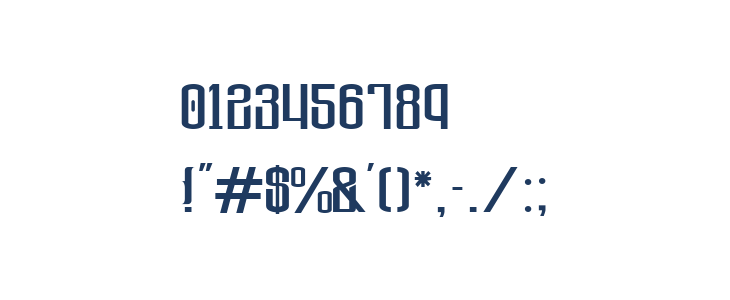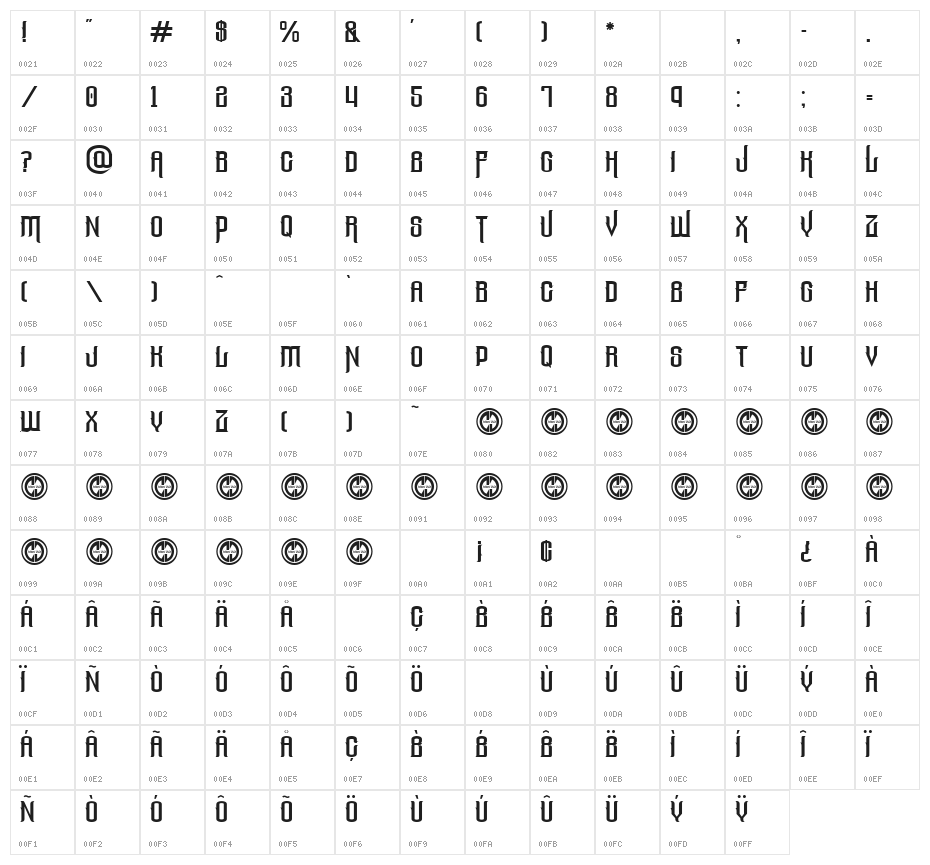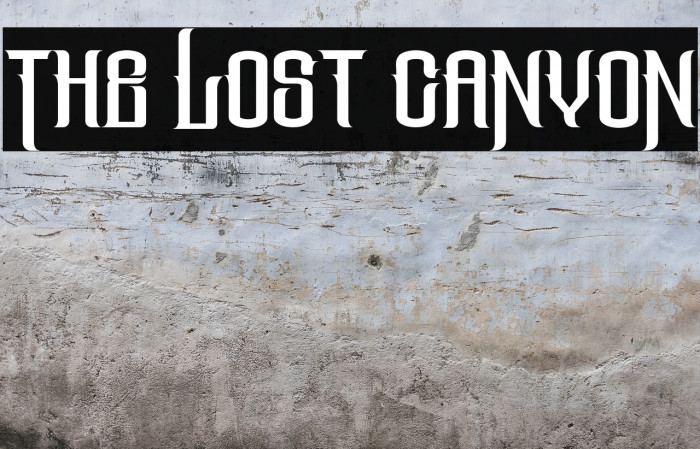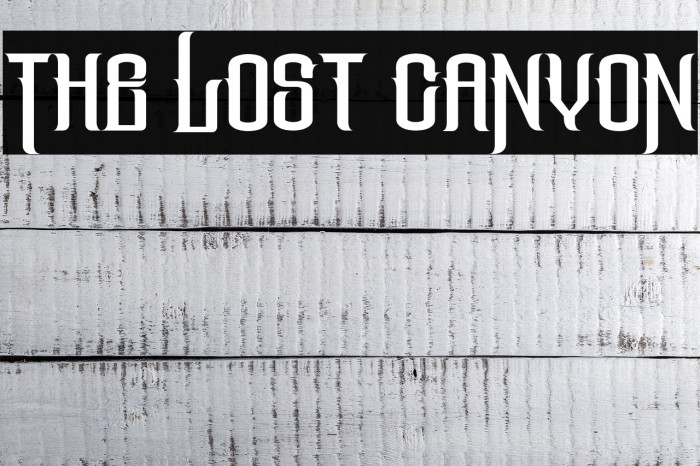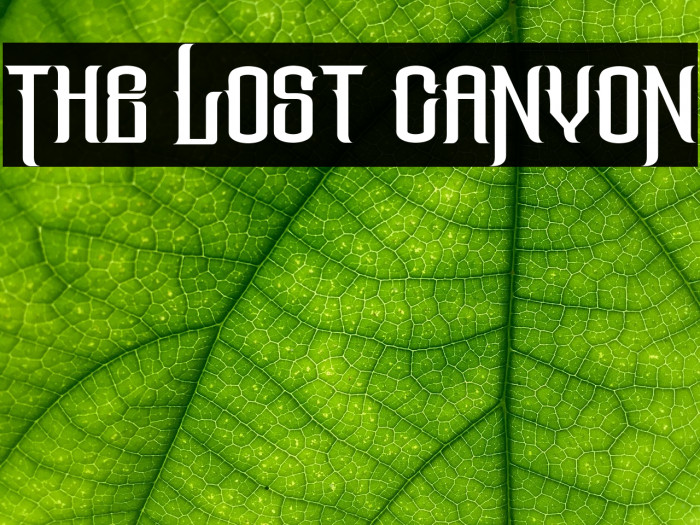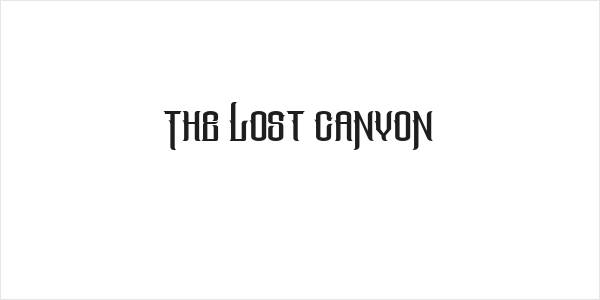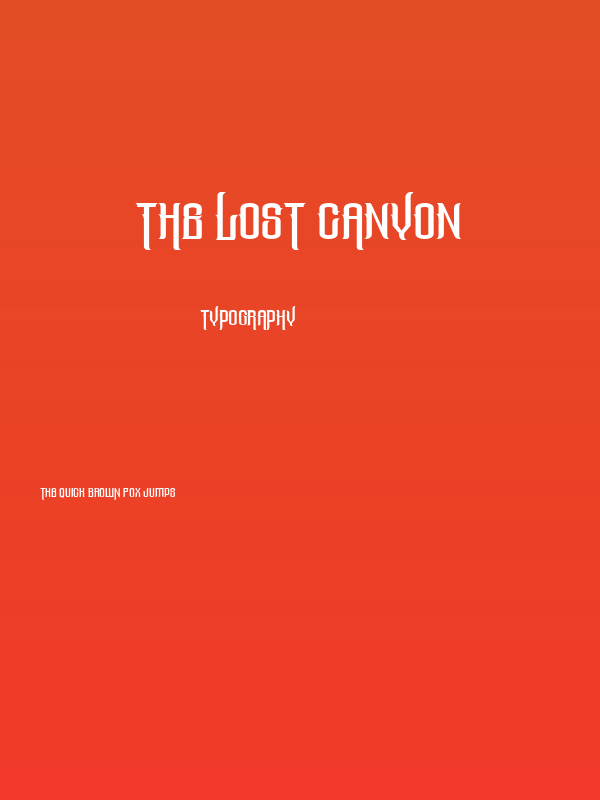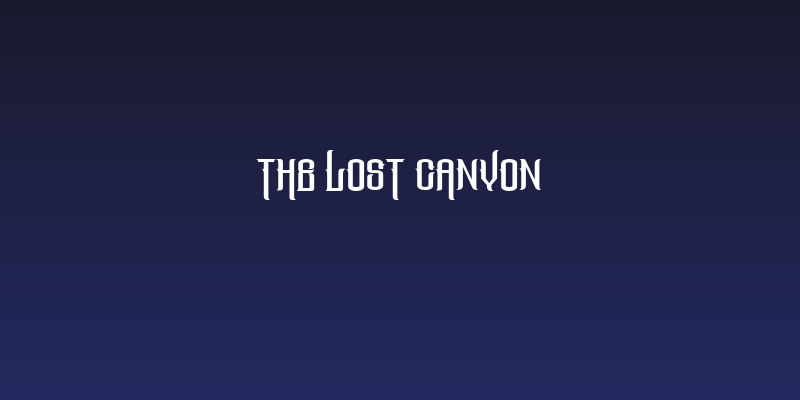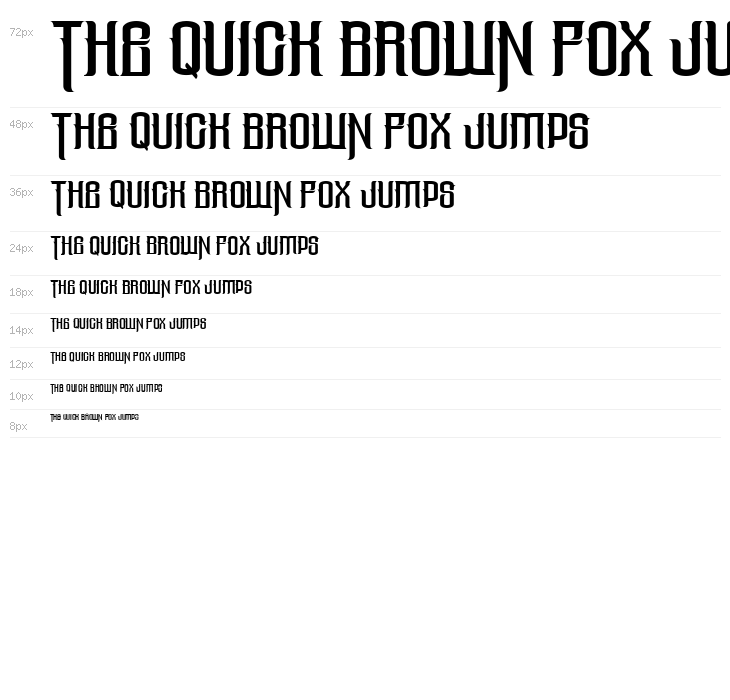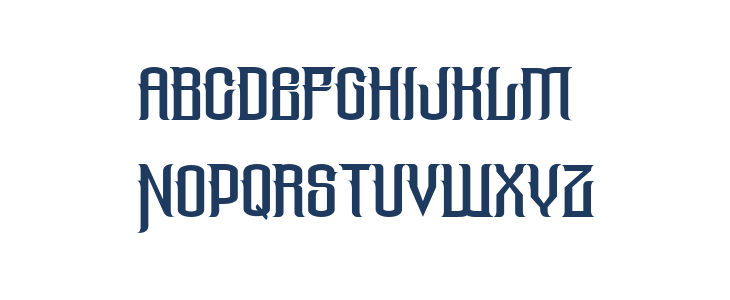
The Lost Canyon Font
The Lost Canyon Description
This font features a bold and striking design with a strong presence. The characters are tall and narrow, with sharp, angular edges that give it a gothic and medieval feel. The uppercase letters are particularly elongated, creating a dramatic and imposing look. The lowercase letters maintain the same angular style, ensuring consistency throughout the typeface. Numbers and special characters are designed to match the overall aesthetic, with similar sharp angles and bold lines. This font is ideal for projects that require a sense of strength and tradition, such as branding for historical or fantasy-themed products.
| Overall Style | Gothic |
| Use Case | Logos, Posters, Book covers |
| Proposed Projects | Ideal for fantasy-themed branding, historical event posters, or gothic-style book covers. |